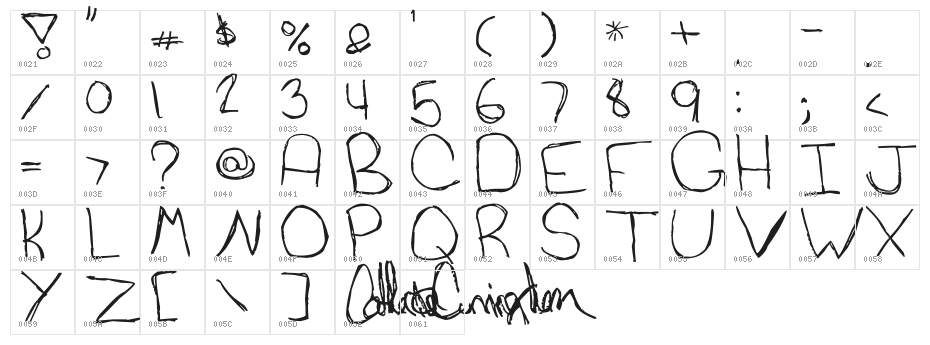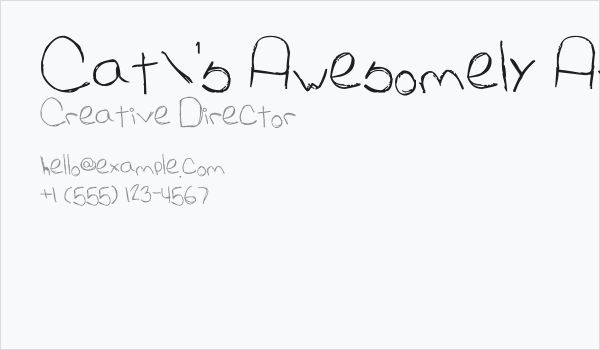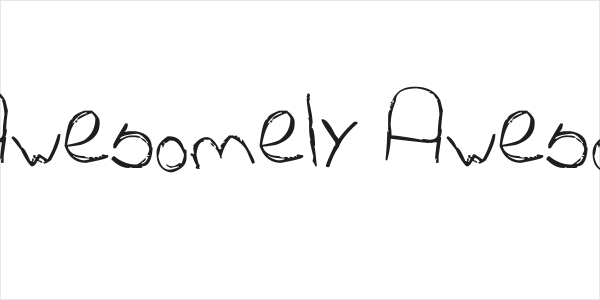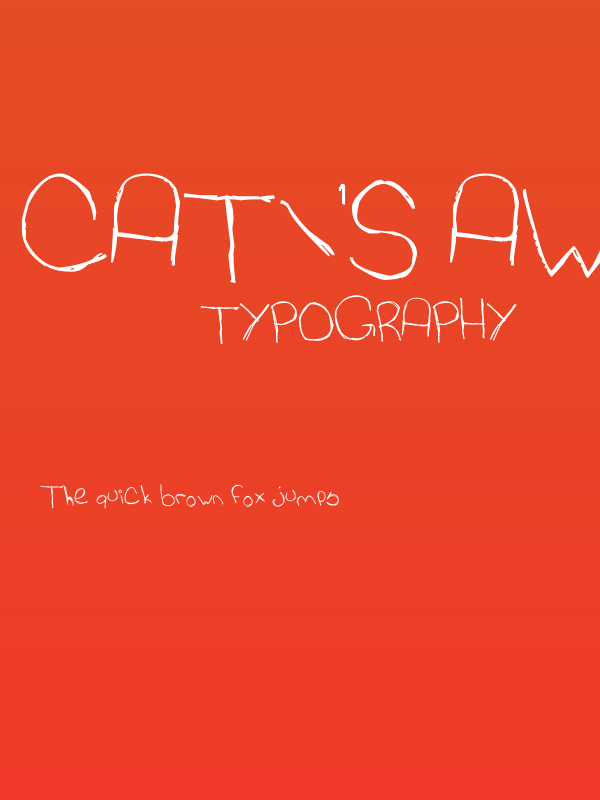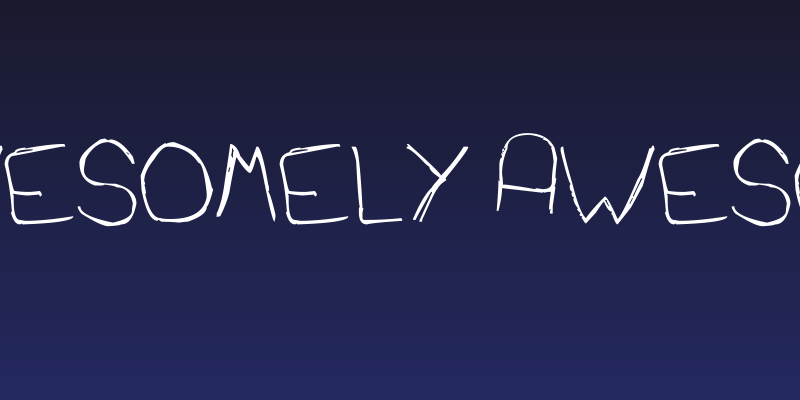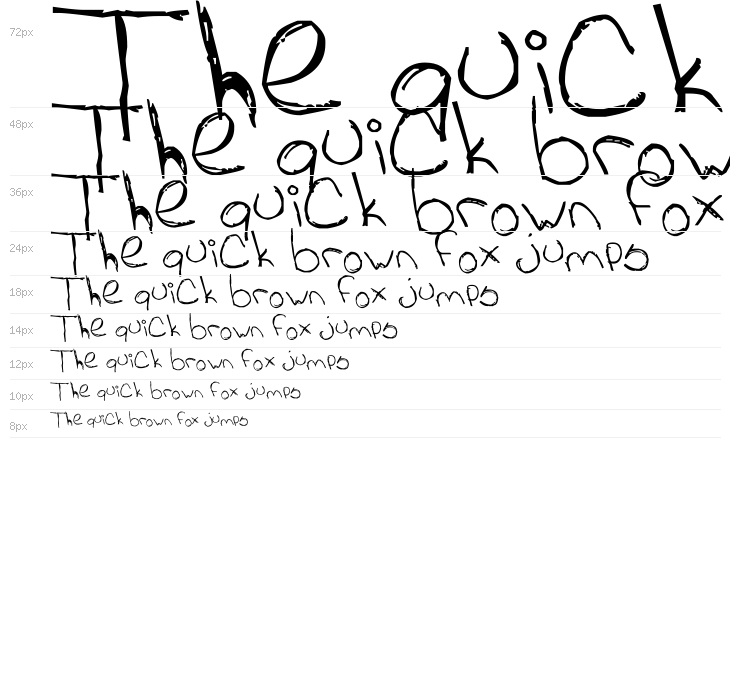
Cat's Awesomely Awesome Font Font
Cat's Awesomely Awesome Font Description
This font exudes a playful and whimsical charm, characterized by its hand-drawn, sketch-like appearance. The letters are uneven and slightly irregular, giving it a casual and informal feel. The strokes vary in thickness, adding a dynamic and lively quality to the text. The uppercase and lowercase letters maintain a consistent style, with quirky curves and angles that enhance its unique personality. Numbers and special characters follow the same aesthetic, ensuring a cohesive look across all elements. This font is perfect for projects that require a touch of creativity and fun.
| Use Case | Headlines, Creative projects, Informal text |
| Proposed Projects | Ideal for children's books, creative posters, casual invitations, and playful branding. |